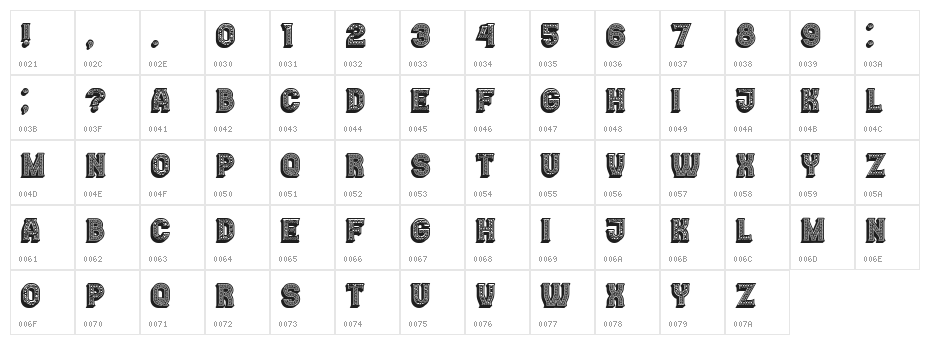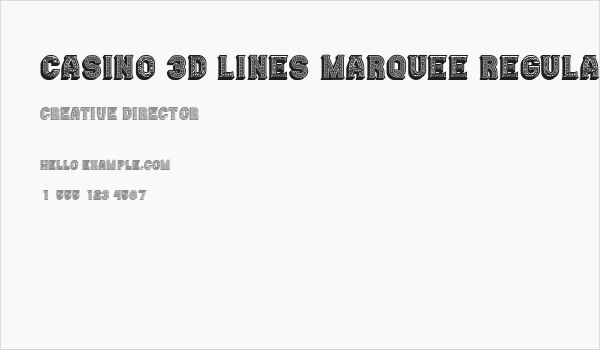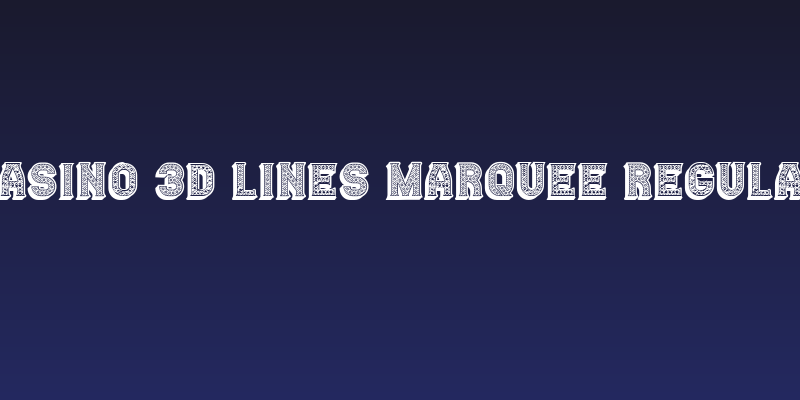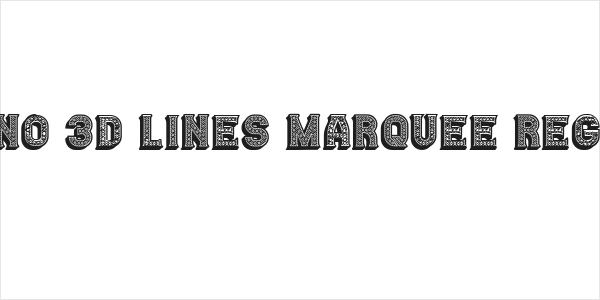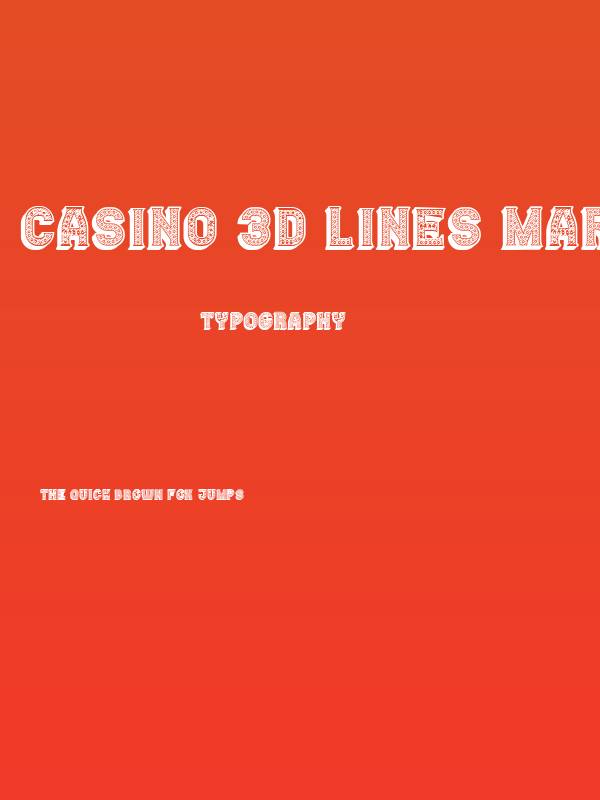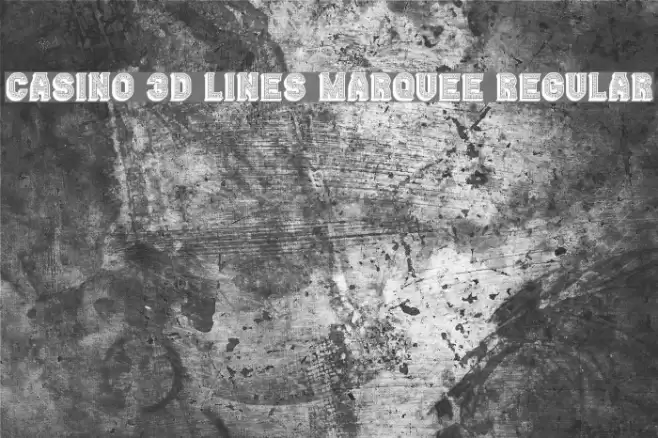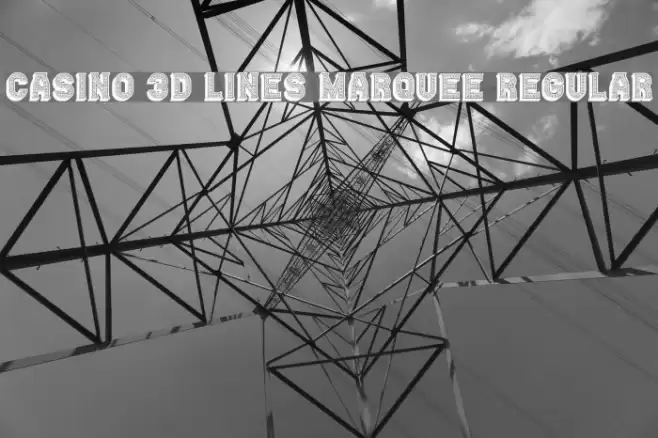
Casino 3D Lines Marquee Regular Font
Casino 3D Lines Marquee Regular Description
This font features a bold, decorative style with a 3D effect that gives it a marquee-like appearance. The letters are heavily outlined, with intricate line patterns filling the interior, creating a sense of depth and texture. The design is reminiscent of vintage casino signage, evoking a sense of glamour and excitement. Each character is distinct, with a consistent pattern that ties the set together. The numbers and special characters maintain the same ornate style, ensuring uniformity across all elements.
| Overall Style | Vintage |
| Use Case | Headlines, Logos, Signage |
| Proposed Projects | Ideal for projects that require a vintage or glamorous touch, such as casino-themed events, retro posters, or signage. |